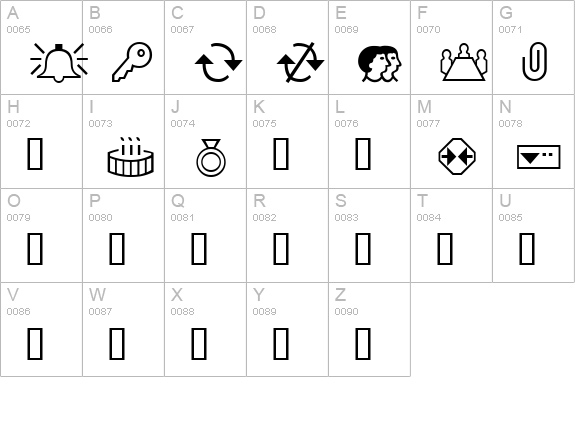
MS Outlook Font Details
The MS Outlook font is a sleek and modern typeface that exudes professionalism and sophistication. Its clean lines and stylish design make it perfect for a wide range of applications, from business correspondence to creative projects. The versatility of this font allows it to be used in both print and digital media, making it a valuable addition to any designer's toolkit. Best of all, the MS Outlook font is available for free download at FontsMarket.com. This means that you can easily access this high-quality font without having to worry about any extra costs. Whether you're a seasoned designer or just starting out, the MS Outlook font is a fantastic choice that will elevate your projects to the next level. Download it today and see for yourself the impact it can make on your work.